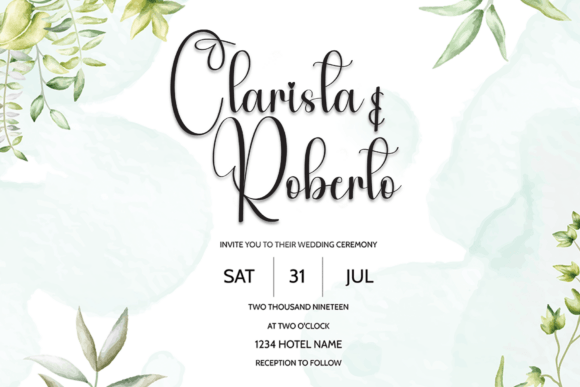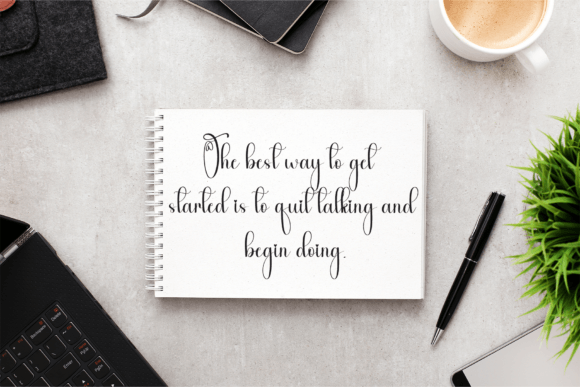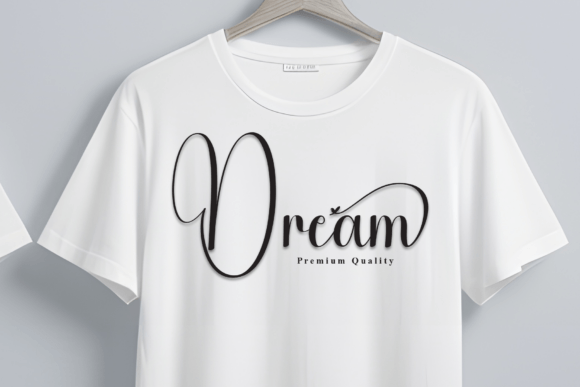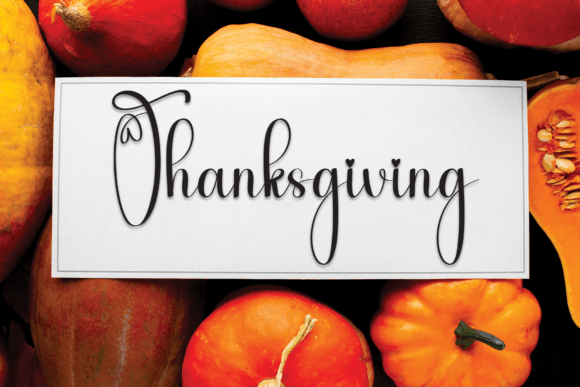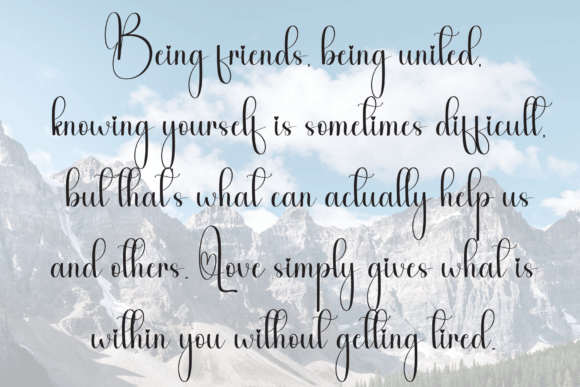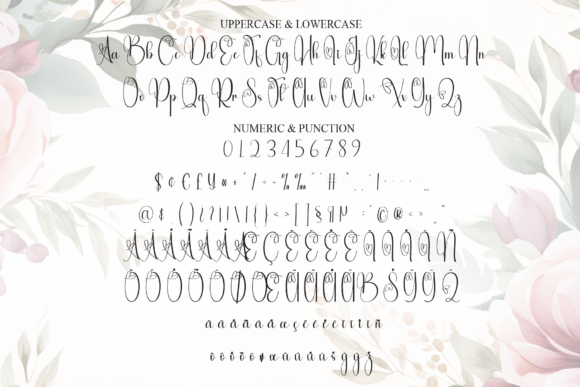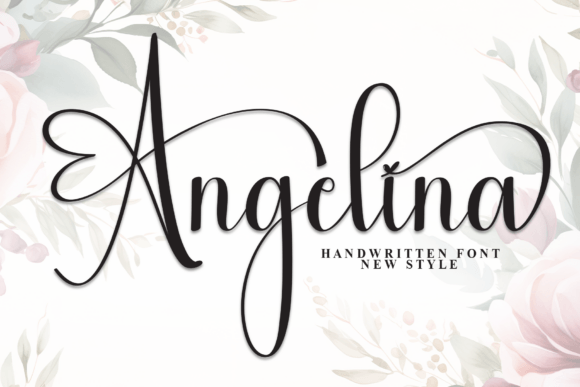
Introducing Angelina Font: The Sweetest Handwritten Display Font for Your Design Needs
Are you looking for a font that embodies a touch of sweetness and friendliness? Look no further than Angelina Font, an exquisite handwritten display font that blooms with charm and creativity. This delightful typeface is perfect for adding a dash of joy to your artistic projects, whether it’s for wedding invitations, thoughtful cards, or anywhere else that craves a whimsical touch.
The Characteristics of Angelina Font
Angelina Font is a handwritten display font that exudes a sense of playfulness and friendliness. Its exquisite handwritten style is characterized by:
- Sweet and Curvy Lines: Angelina Font features sweet and curvy lines that give it a charming and feminine touch.
- Flowing Connections: The font’s letters are connected by flowing lines, creating a sense of movement and fluidity.
- Unique Letterforms: Each letterform in Angelina Font is unique and carefully crafted to add a touch of personality to your designs.
Uses of Angelina Font
Angelina Font is a versatile typeface that can be used in a variety of design projects, including:
- Wedding Invitations: Add a touch of romance and whimsy to your wedding invitations with Angelina Font.
- Cards and Stationery: Use Angelina Font to create thoughtful and personalized cards and stationery.
- Signage and Posters: Angelina Font is perfect for creating eye-catching signage and posters that require a friendly and approachable tone.
- Digital Media: Use Angelina Font in your digital media, such as social media graphics, blog headers, and email newsletters.
Benefits of Using Angelina Font
There are many benefits to using Angelina Font in your design projects, including:
- Instant Recognition: Angelina Font’s unique and playful style makes it instantly recognizable and memorable.
- Emotional Connection: The font’s sweet and friendly tone helps to create an emotional connection with your audience.
- Versatility: Angelina Font can be used in a variety of design projects, from print to digital media.
- Ease of Use: The font is easy to read and use, making it perfect for designers and crafters of all levels.
Tips for Using Angelina Font
Here are some tips for using Angelina Font in your design projects:
- Pair with Other Fonts: Pair Angelina Font with other fonts to create a unique and visually appealing combination.
- Use in Combination with Images: Use Angelina Font in combination with images to add a touch of personality to your designs.
Angelina Font is a delightful handwritten display font that embodies a touch of sweetness and friendliness. Its exquisite handwritten style blooms with charm and creativity, making it perfect for adding a dash of joy to your artistic projects. Whether you’re a designer or crafter, Angelina Font is a versatile typeface that can be used in a variety of design projects. So why not give it a try and experience the jolly fun of this font for yourself?